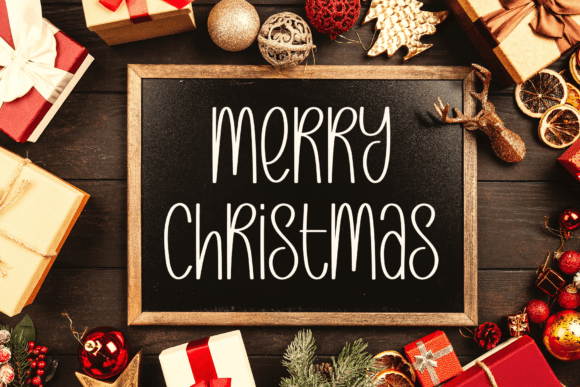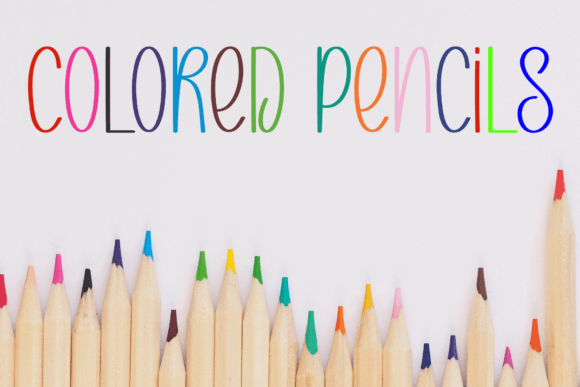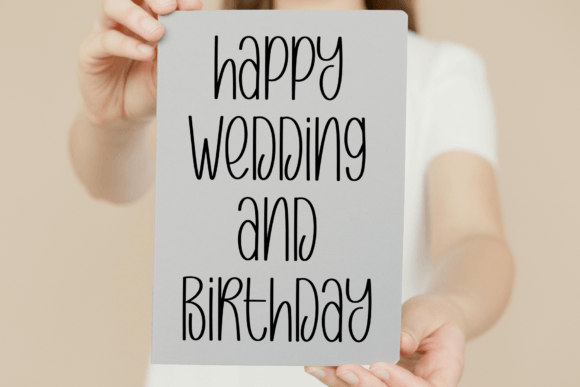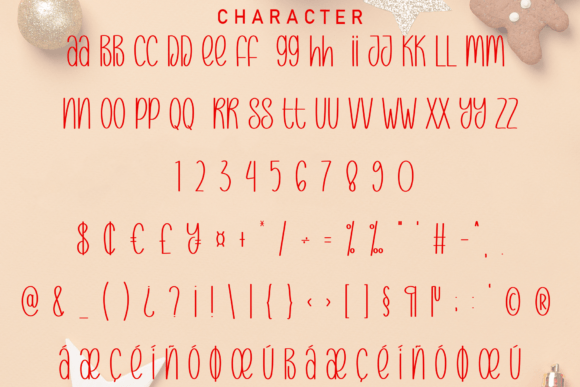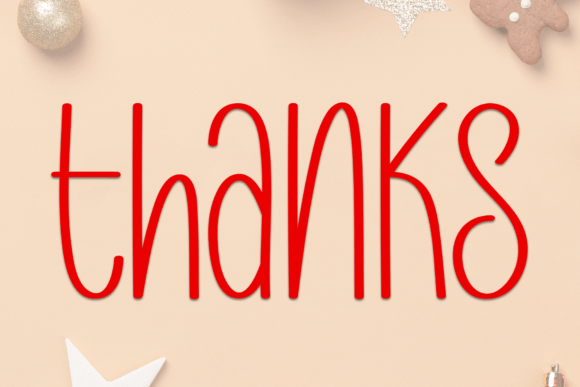
Introduction to Samantha Christmas Font
Do you ever get that spark of inspiration in the middle of a creative project, where everything just clicks and you can’t wait to bring your vision to life? For designers, those moments are what make all the hard work worth it. And, sometimes, all it takes is the right font to set the tone for an entire design. That’s where the Samantha Christmas Font comes in – a playful display font that’s as bold as it is eye-catching.
This free download is a game-changer for designers looking to add some extra oomph to their designs. With its transparent background and high-quality design, it’s a versatile resource that can be used across a range of creative projects, from social media graphics to event flyers. Whether you’re a seasoned pro or just starting out, the Samantha Christmas Font is sure to make your text stand out with its fun, energetic feel.
Samantha Christmas Font
- High-quality font designed for creative projects, perfect for adding a touch of festive cheer to your designs.
- Designed with a high level of detail, this font is ideal for use in a variety of creative contexts, from digital art to print materials.
Honest Review: Samantha Christmas Font
I recently had the opportunity to try out the Samantha Christmas Font, and I must say it’s been a delightful addition to my design resources.
- ✨ The font’s aesthetic is perfect for a festive and playful creative project. I can envision it being used in a variety of designs, from Christmas cards to winter-themed social media posts.
- ⚠️ The font only includes a limited number of characters, which may not be ideal for more extensive design projects.
- ⚠️ The font’s design may not be suitable for more professional or formal design projects, as it has a more playful and whimsical feel.
Overall, I’m impressed with the Samantha Christmas Font. It’s a high-quality design resource that’s perfect for designers looking to add a touch of festive flair to their projects.
The Samantha Christmas Font is perfect for holiday-themed projects, such as Christmas cards, gift tags, and social media graphics. You can also use the font for general design projects, such as brochures, flyers, and posters.